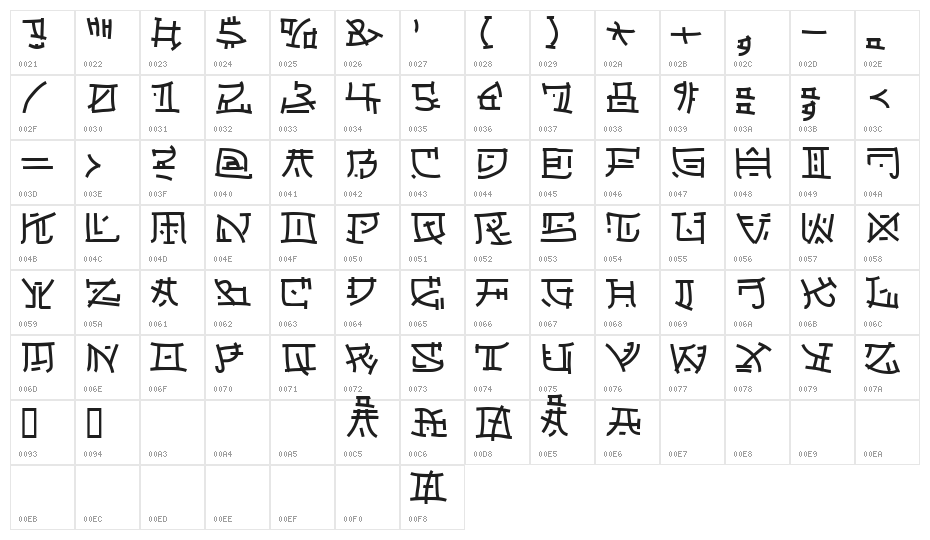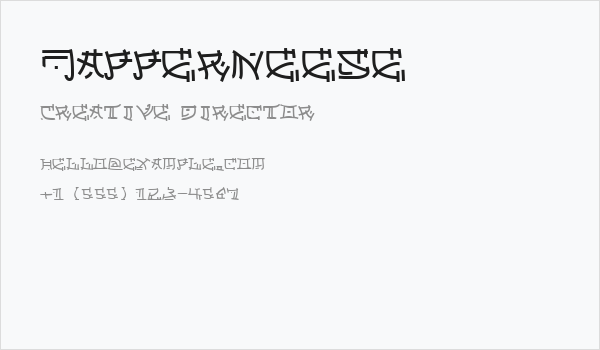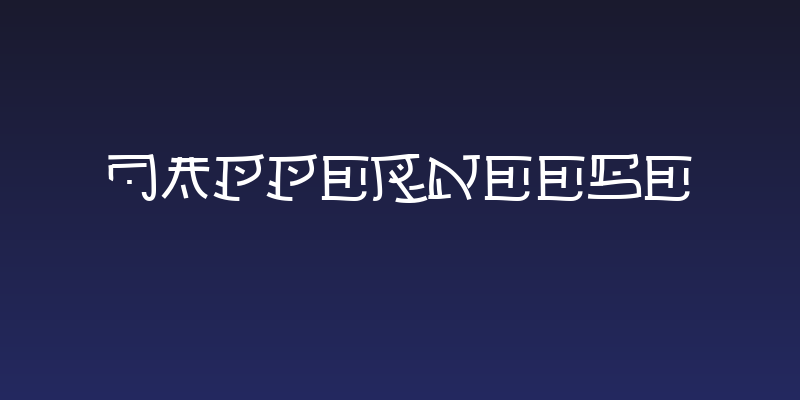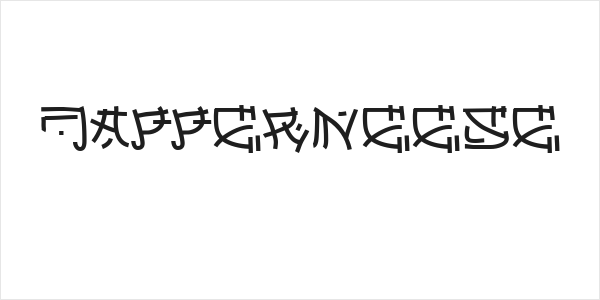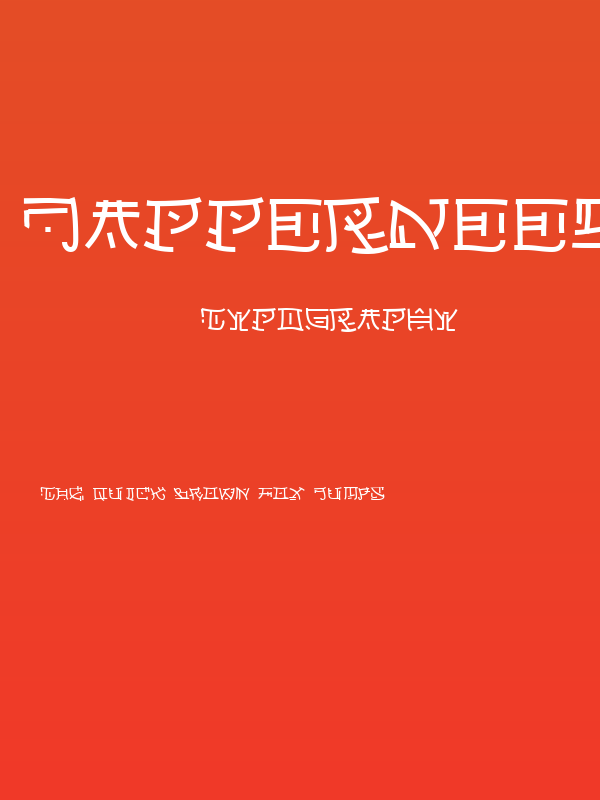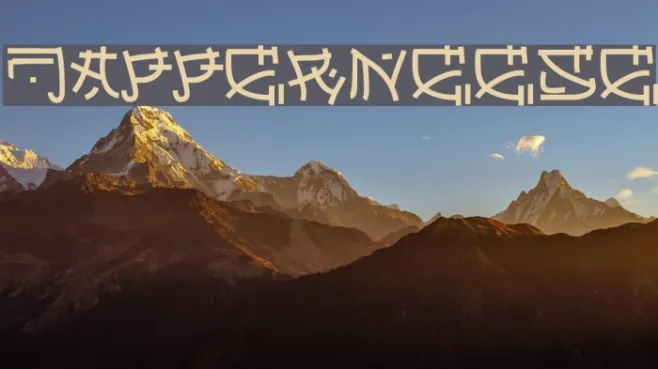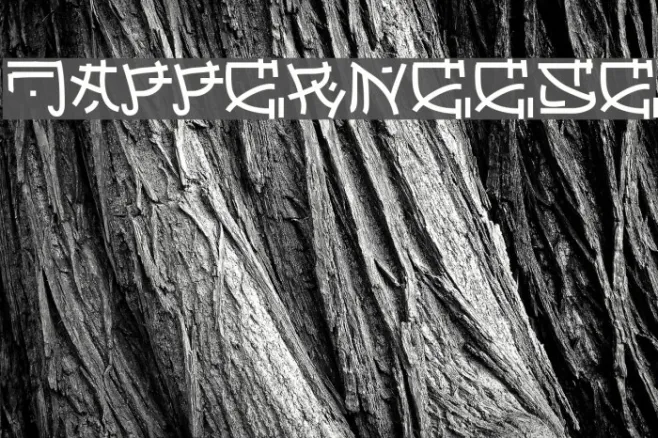
Japperneese Font
Japperneese Description
This font features a unique, abstract design with a strong geometric influence. Each character is crafted with sharp angles and bold lines, creating a sense of movement and energy. The letters are highly stylized, resembling a fusion of modern art and ancient script. The overall appearance is both futuristic and tribal, making it stand out in any design context. The font maintains a consistent weight throughout, with medium contrast between thick and thin strokes. Its distinct style is ideal for creative projects that require a bold statement.
| Overall Style | Modern, Tribal |
| Proposed Projects | Ideal for album covers, video game titles, posters, and branding that seeks a unique and edgy look. |